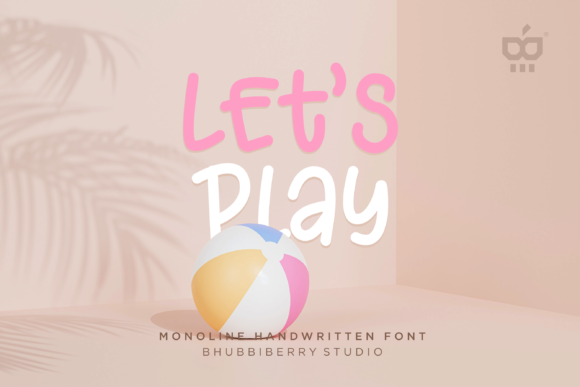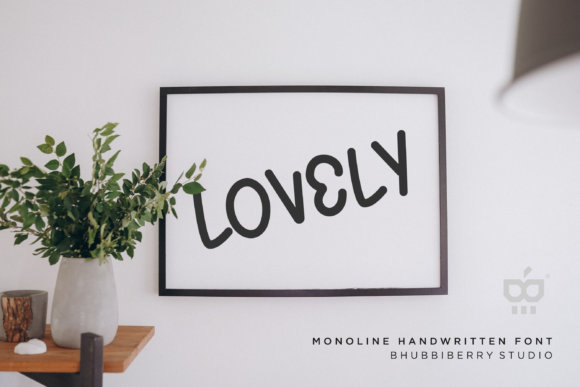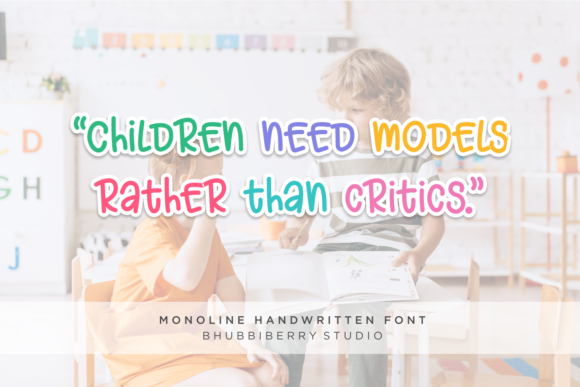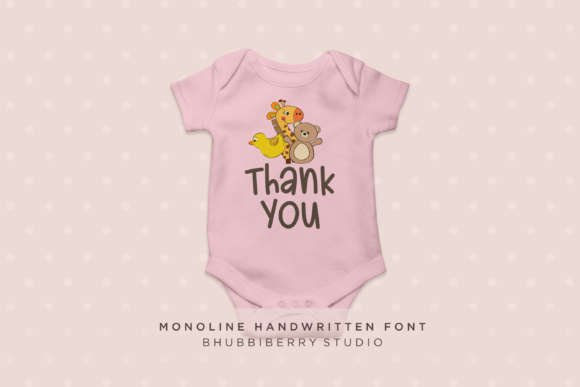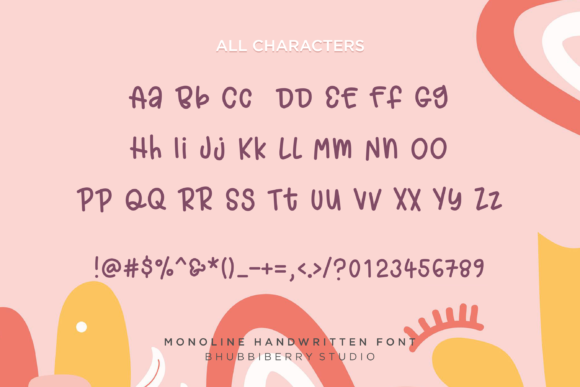
Pearly Font
About Pearly Font
Pearly is more than just a font; it’s a sweet and friendly handwritten script that brings a delightful touch to a diverse range of designs. With its natural and unique style, Pearly is a versatile choice that seamlessly complements various creative projects. The only limit is your imagination!
Imagine incorporating Pearly into designs for greeting cards, where its friendly and approachable demeanor adds warmth to every message. Its sweet charm transforms invitations into personal and engaging pieces that leave a lasting impression on recipients.
Pearly’s natural flow makes it an excellent fit for social media posts, logos, and advertisements, injecting a friendly and relatable vibe into your brand or message. Let your creativity flow without bounds as you explore the limitless possibilities of this charming handwritten font.
Product packaging and labels come to life with Pearly, as its distinctive style adds a touch of personality to your brand identity. Whether you’re designing for a whimsical product or a heartfelt project, Pearly enhances the overall visual appeal.
Photography and watermarks acquire a playful and unique quality with Pearly, making your visuals stand out with an extra layer of charm. The font’s friendly nature extends to wall displays, stationery, and beyond, making it an ideal choice for projects that seek a balance between sweetness and creativity.
With Pearly, the possibilities are vast, allowing you to infuse your designs with a sense of friendliness and uniqueness. So, let your imagination run wild, and watch as Pearly elevates your creative ventures to new and charming heights!